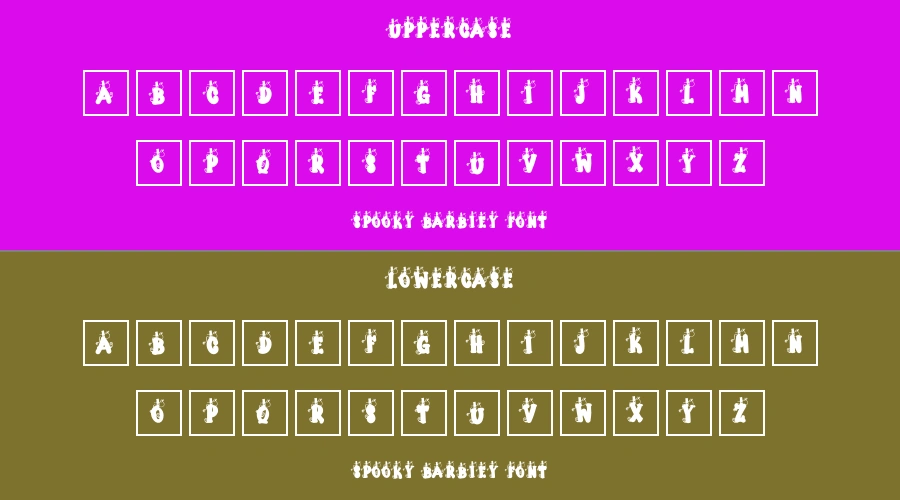
About Spooky Barbiey Font
When typographic excellence matters most, Spooky Barbiey Font delivers through its thoughtful blend of swash extensions and human connection. Specially crafted for historical publications, it offers the expressiveness and artistic value required for sophisticated design work. Every detail serves a purpose.
The character set showcases thoughtful details like ink traps alongside functional currency signs. This proves especially valuable in artistic statements, where detail preservation directly influences results. Particular attention was paid to descender depth and standards alignment during development.